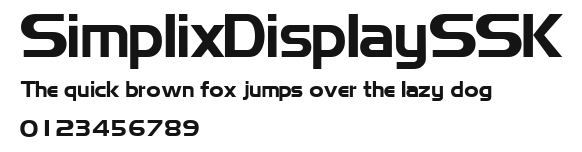
• Font Name: SimplixDisplaySSK
• Full Font Name: SimplixDisplaySSK Regular
About SimplixDisplaySSK.ttf
SimplixDisplaySSK.ttf is a modern, elegant sans-serif font designed for ultimate readability and visual harmony. Perfect for branding, headlines, web design, and print materials.